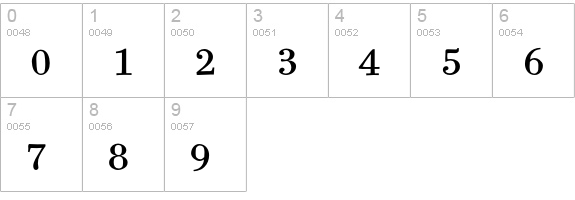
BodoniSixEF-Book is a comfortable, highly readable variant in the BodoniSixEF typeface family \xE2\x80\x94 well suited to long-form body text, articles, and editorial content.
BodoniSixEF-Book is a classic and elegant serif font that exudes sophistication and timeless beauty. With its sleek lines and graceful curves, this font is perfect for adding a touch of luxury to any design project. Whether you're working on a wedding invitation, branding materials, or editorial layouts, BodoniSixEF-Book will bring a touch of class to your work. What makes BodoniSixEF-Book even more appealing is that it is available for free download at FontsMarket.com. This means you can easily access this stunning typeface without having to worry about any additional costs. So go ahead and elevate your designs with the beauty and elegance of BodoniSixEF-Book – the perfect choice for those seeking a touch of sophistication in their typography.